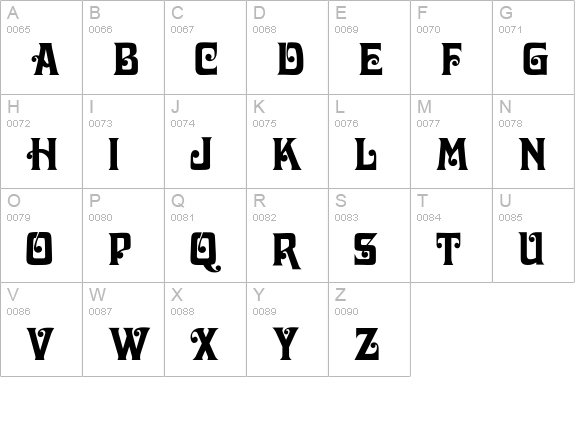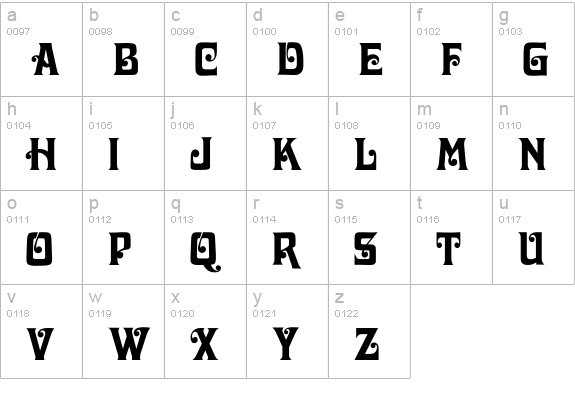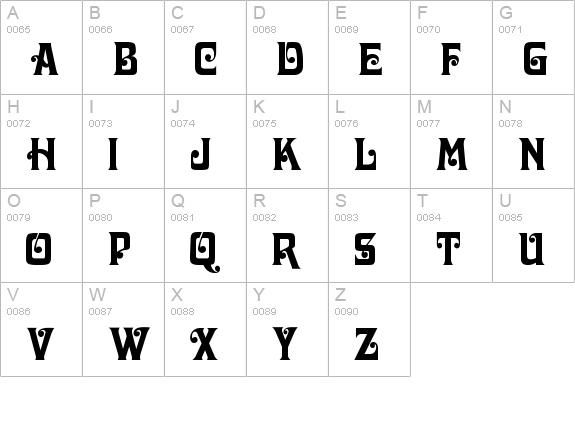
DavidaBold Font Details
DavidaBold font exudes a sense of strength and boldness with its robust letterforms and commanding presence. This versatile typeface is ideal for making a statement in headlines, titles, and branding materials. Its sharp angles and distinctive curves add a touch of modernity to any design project. What sets DavidaBold font apart is not only its striking appearance but also its accessibility - it is available for free download at FontsMarket.com. This means that you can easily incorporate this powerful font into your creative projects without any cost. Whether you're looking to make a bold impact or add a touch of sophistication, DavidaBold font is the perfect choice for designers seeking a versatile and impactful typeface.